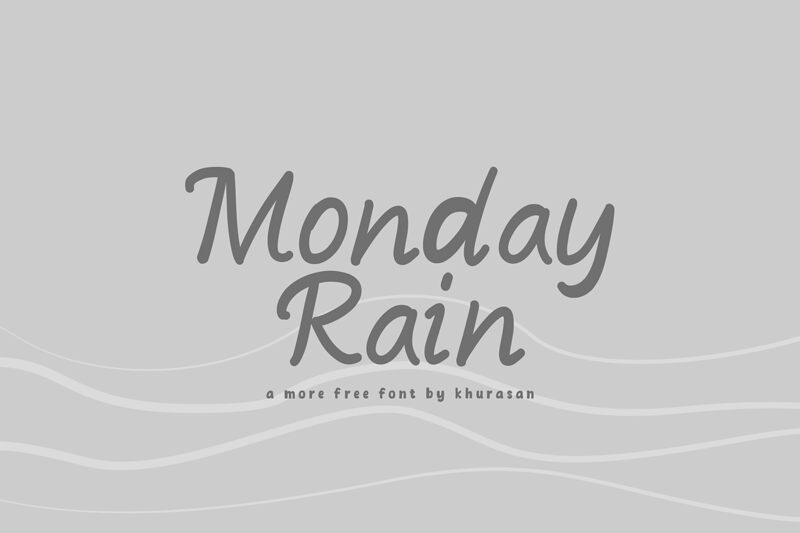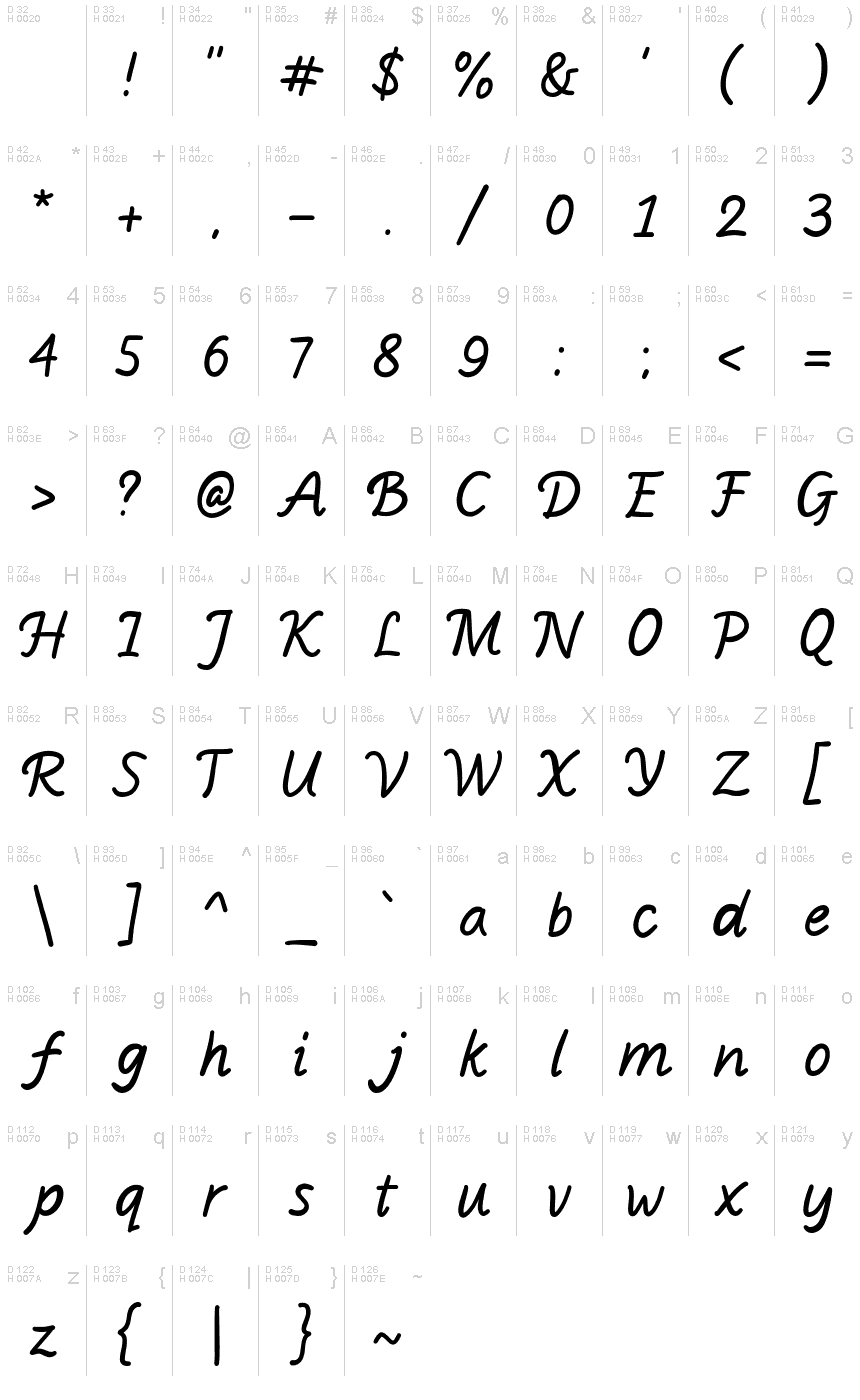
Monday Rain
Monday Rain, designed by Khurasan, is a charming and contemporary handwritten font. Its semi-light weight adds a delicate touch to any design.
Whether you're working on posters, logos, magazines, book covers, or banners, Monday Rain will bring a playful and stylish element to your project. This versatile font can effortlessly enhance various creative ideas and make them truly remarkable. With Monday Rain as your go-to choice, you'll witness your designs stand out from the crowd with its unique and captivating appeal.